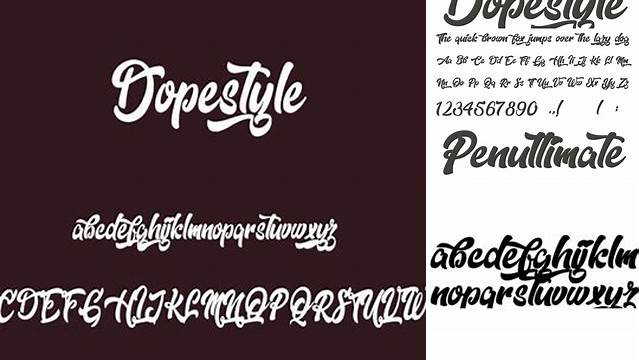
Free Dopestyle Fonts: Your Guide To Unique Typography
Introduction to Dopestyle Fonts
Dopestyle fonts, guys, are where it’s at when you want to inject some serious personality and flair into your designs. These fonts aren't your run-of-the-mill Times New Roman; they're the cool kids of the typography world. They come packed with unique curves, sharp edges, and an overall vibe that screams individuality. When you're diving into the world of graphic design, branding, or even just sprucing up a personal project, choosing the right font can make or break your final product. That's where dopestyle fonts come in – they offer a way to stand out, to make a statement, and to add that special something that makes people go, "Wow!" But what exactly makes a font "dopestyle"? It's not just about looking good; it's about having a certain edge, a distinct character that sets it apart from the crowd. Think bold strokes, unconventional letterforms, and a touch of the unexpected. These fonts are perfect for logos, posters, social media graphics, and anything else where you want to grab attention. Choosing a dopestyle font isn't just about aesthetics; it's about communicating your message with style and confidence. It's about saying, "Hey, we're different, and we're proud of it!" And let's be real, in a world where everyone's fighting for attention, having a font that can do the talking for you is a major win.
What Makes a Font "Dopestyle"?
So, what exactly gives a font that dopestyle edge? It's a mix of different elements, guys, that come together to create something truly unique. First off, visual uniqueness is key. Dopestyle fonts often break away from traditional letterforms, experimenting with shapes, lines, and curves in ways that you might not see in your everyday Arial or Helvetica. Think about fonts with exaggerated serifs, unusual ligatures, or even completely custom-designed characters. These are the kinds of details that make a font memorable. Then there's the boldness and impact factor. Many dopestyle fonts are designed to make a statement, so they tend to be strong and attention-grabbing. This might mean thick strokes, high contrast, or a generally imposing presence on the page. These fonts are perfect for headlines, titles, and anything else where you need to make a big impression. But it's not just about being loud; dopestyle fonts also have a sense of personality and character. They often reflect a particular style or aesthetic, whether it's vintage, futuristic, edgy, or playful. This personality can come through in subtle details, like the way the letters connect, the slant of the strokes, or the overall rhythm of the font. Finally, versatility is important too. While dopestyle fonts are all about being unique, they also need to be usable in a variety of contexts. A truly great dopestyle font will look just as good on a website as it does on a poster, and it will work well with a range of different design styles. When you're looking for a dopestyle font, think about these elements. What kind of visual impact do you want to make? What personality do you want to convey? And how versatile do you need the font to be? With the right dopestyle font, you can take your designs to the next level.
Why Use Dopestyle Fonts?
Why should you even bother with dopestyle fonts, you ask? Well, guys, the answer is simple: they can seriously elevate your designs. In a world drowning in visual content, standing out is more crucial than ever, and your font choice is a game-changer. Dopestyle fonts grab attention. They're not your average, run-of-the-mill typefaces; they're bold, unique, and eye-catching. Think of them as the rockstars of the font world, strutting onto the stage and commanding the spotlight. If you're aiming to make a statement, whether it's on a website, a poster, or a social media graphic, a dopestyle font is your secret weapon. Moreover, they add personality. A carefully chosen font can inject your brand or project with a distinct vibe, setting the tone and creating an emotional connection with your audience. Is your brand edgy and modern? A sharp, geometric dopestyle font can reflect that. Or perhaps you're going for a vintage, nostalgic feel? A font with elegant curves and a retro touch can do the trick. The right font can speak volumes, conveying your message with a style that words alone can't capture. Let's not forget that dopestyle fonts enhance memorability. In a sea of sameness, a unique font helps your message stick in people's minds. It's like giving your brand a memorable face, a visual signature that people will recognize and remember. A distinctive font can be the difference between being overlooked and being unforgettable. And they convey creativity. Using a dopestyle font signals that you're not afraid to think outside the box. It shows that you're willing to take risks and embrace originality, which can be a powerful message in itself. Whether you're a designer, a marketer, or a business owner, using a dopestyle font is a way to express your creative spirit. So, if you're looking to make a bold statement, add personality, enhance memorability, and convey creativity, dopestyle fonts are your go-to choice. They're the secret sauce that can transform your designs from ordinary to extraordinary.
Tips for Choosing the Right Dopestyle Font
Choosing the right dopestyle font can feel like a quest, guys, but don't sweat it! With a few tips and tricks, you can find the perfect typeface to make your designs shine. First off, consider your project's purpose. What are you trying to achieve? Is it a bold, attention-grabbing headline? A sleek, modern logo? A playful social media graphic? The font you choose should align with the overall message and feel of your project. A super-edgy, graffiti-style font might be perfect for a poster promoting a rock concert, but it probably wouldn't be the best choice for a corporate website. Then, think about your brand's personality. Your font is a visual representation of your brand, so it should reflect your brand's values and identity. Are you a fun and quirky brand? A sophisticated and elegant one? A bold and innovative one? Choose a font that embodies those qualities. If you're not sure where to start, try brainstorming a few adjectives that describe your brand, and then look for fonts that evoke those feelings. Don't forget about readability. A dopestyle font might look amazing, but if it's hard to read, it's not going to be effective. Make sure your font is legible at different sizes and in different contexts. This is especially important for body text, where readability is crucial. A good rule of thumb is to test your font in a real-world setting before committing to it. Print it out, view it on different screens, and see how it looks in context. Another key factor is contrast. If you're using a dopestyle font for a headline or title, make sure it contrasts well with the body text. This will help create visual hierarchy and make your design more engaging. You can achieve contrast by using different font weights, styles, or even completely different typefaces. For example, you might pair a bold, sans-serif dopestyle font with a more traditional serif font for the body text. Finally, don't be afraid to experiment! The world of typography is vast and exciting, so have fun exploring different options. Try out different combinations, play with different sizes and weights, and see what works best for your project. You might be surprised at what you discover. And remember, there's no such thing as a perfect font – it's all about finding the right font for the right project. With a little bit of experimentation and these tips in mind, you'll be able to choose dopestyle fonts like a pro.
Using Dopestyle Fonts in Your Designs
Alright, guys, you've got your hands on some killer dopestyle fonts – now what? It's time to put them to work and make your designs pop! But before you go wild, let's talk about some tips for using these fonts effectively. First and foremost, use them sparingly. Dopestyle fonts are all about making a statement, so you don't want to overdo it. Using too many different dopestyle fonts in a single design can create visual clutter and make your message confusing. A good rule of thumb is to stick to one or two dopestyle fonts per project, and pair them with a more neutral, readable font for body text. This will help your dopestyle fonts stand out and make a bigger impact. Next up, think about hierarchy. Use your dopestyle fonts to draw attention to the most important elements of your design, such as headlines, titles, and call-to-actions. This will help guide the viewer's eye and ensure that your message is clear. You can create hierarchy by using different font sizes, weights, and styles. For example, you might use a large, bold dopestyle font for your headline and a smaller, lighter font for your body text. Don't forget about context. The way you use a dopestyle font will depend on the overall style and tone of your design. If you're creating a sleek, modern design, you might want to use a minimalist dopestyle font with clean lines and geometric shapes. On the other hand, if you're creating a vintage-inspired design, you might opt for a more ornate, decorative dopestyle font. Consider the other elements of your design, such as colors, images, and layout, and make sure your font complements them. Kerning and leading are your friends. These are the subtle adjustments that can make a huge difference in the readability and visual appeal of your typography. Kerning refers to the spacing between individual letters, while leading refers to the spacing between lines of text. Adjusting these settings can help create a more balanced and harmonious look. Most design software programs have kerning and leading tools that you can use to fine-tune your typography. Finally, test, test, test! Before you finalize your design, make sure to test your fonts in different contexts and at different sizes. Print your design out, view it on different screens, and get feedback from others. This will help you identify any potential issues and ensure that your typography is working effectively. With these tips in mind, you'll be able to use dopestyle fonts to create designs that are both visually stunning and highly effective.
Examples of Dopestyle Fonts in Action
To really get a feel for how dopestyle fonts can transform your designs, guys, let's check out some real-world examples. Seeing these fonts in action can spark your creativity and give you ideas for your own projects. Think about logos and branding. Dopestyle fonts are a fantastic way to create a memorable and distinctive logo. A bold, unique typeface can instantly set your brand apart from the competition. For example, imagine a tech startup using a sleek, futuristic dopestyle font for their logo, conveying innovation and cutting-edge technology. Or a vintage-inspired brand using an ornate, script dopestyle font to evoke a sense of nostalgia and craftsmanship. Your logo is the face of your brand, and a dopestyle font can help you make a lasting impression. Moving on to posters and flyers, dopestyle fonts are a go-to choice for grabbing attention. Whether you're promoting a concert, an event, or a product, a bold and eye-catching typeface can make your message impossible to ignore. Consider a music festival poster using a gritty, hand-drawn dopestyle font to convey an edgy and energetic vibe. Or a movie poster using a dramatic, cinematic dopestyle font to create a sense of suspense and excitement. In the world of posters and flyers, standing out is crucial, and dopestyle fonts can give you the edge you need. Let's not forget social media graphics. In today's fast-paced digital world, your social media content needs to grab attention in seconds. Dopestyle fonts can help you do just that. Whether you're creating an Instagram post, a Facebook ad, or a Twitter banner, a visually striking typeface can make your content pop. Think about a fashion brand using a chic, elegant dopestyle font for their social media graphics, conveying style and sophistication. Or a fitness brand using a strong, athletic dopestyle font to inspire motivation and energy. Social media is a visual medium, and a dopestyle font can help you make a statement. And consider website headers and titles. Your website's typography plays a crucial role in creating a positive user experience. Dopestyle fonts can help you create headings and titles that are both visually appealing and easy to read. A well-chosen dopestyle font can draw visitors' eyes, guide them through your content, and reinforce your brand's identity. For example, a blog about travel might use a quirky, adventurous dopestyle font for their headings, creating a sense of wanderlust and excitement. Or a website for a design agency might use a minimalist, geometric dopestyle font to convey professionalism and creativity. These are just a few examples, guys, but the possibilities are endless. Dopestyle fonts can be used in a wide variety of design contexts to add personality, make a statement, and enhance visual appeal. So go ahead, experiment, and see what you can create!
Conclusion: Embrace the Dopestyle
So, guys, there you have it – a deep dive into the world of free dopestyle fonts. We've explored what makes a font "dopestyle," where to find these typographic gems, how to choose the right one for your project, and how to use them effectively in your designs. The key takeaway here is that dopestyle fonts are a powerful tool for adding personality, making a statement, and grabbing attention. In a world where visual content is king, your font choices matter more than ever. A well-chosen dopestyle font can transform your designs from ordinary to extraordinary, helping you stand out from the crowd and connect with your audience. But remember, with great power comes great responsibility. Dopestyle fonts are all about making an impact, so it's important to use them strategically. Don't overdo it – stick to one or two dopestyle fonts per project and pair them with more neutral typefaces for body text. Think about hierarchy, using your dopestyle fonts to highlight the most important elements of your design. Consider context, choosing a font that aligns with the overall style and tone of your project. And always, always test your fonts to ensure they're readable and effective. But most importantly, don't be afraid to experiment. The world of typography is vast and exciting, so have fun exploring different options and discovering new favorites. There are tons of free dopestyle fonts out there just waiting to be discovered, and with the resources we've shared, you're well-equipped to find them. So go ahead, embrace the dopestyle, and let your creativity flow. Whether you're designing a logo, a poster, a website, or a social media graphic, dopestyle fonts can help you make a lasting impression. They're the secret sauce that can take your designs to the next level. So go out there, find your perfect dopestyle font, and create something amazing! Your designs will thank you for it.